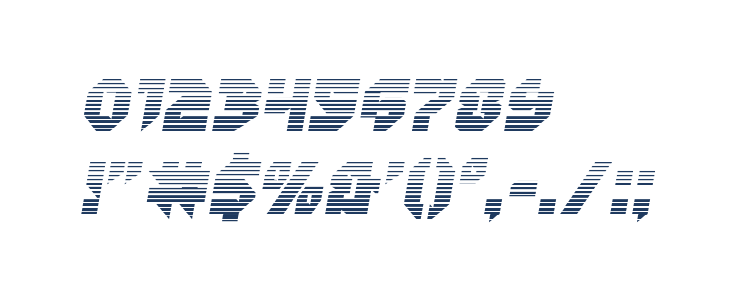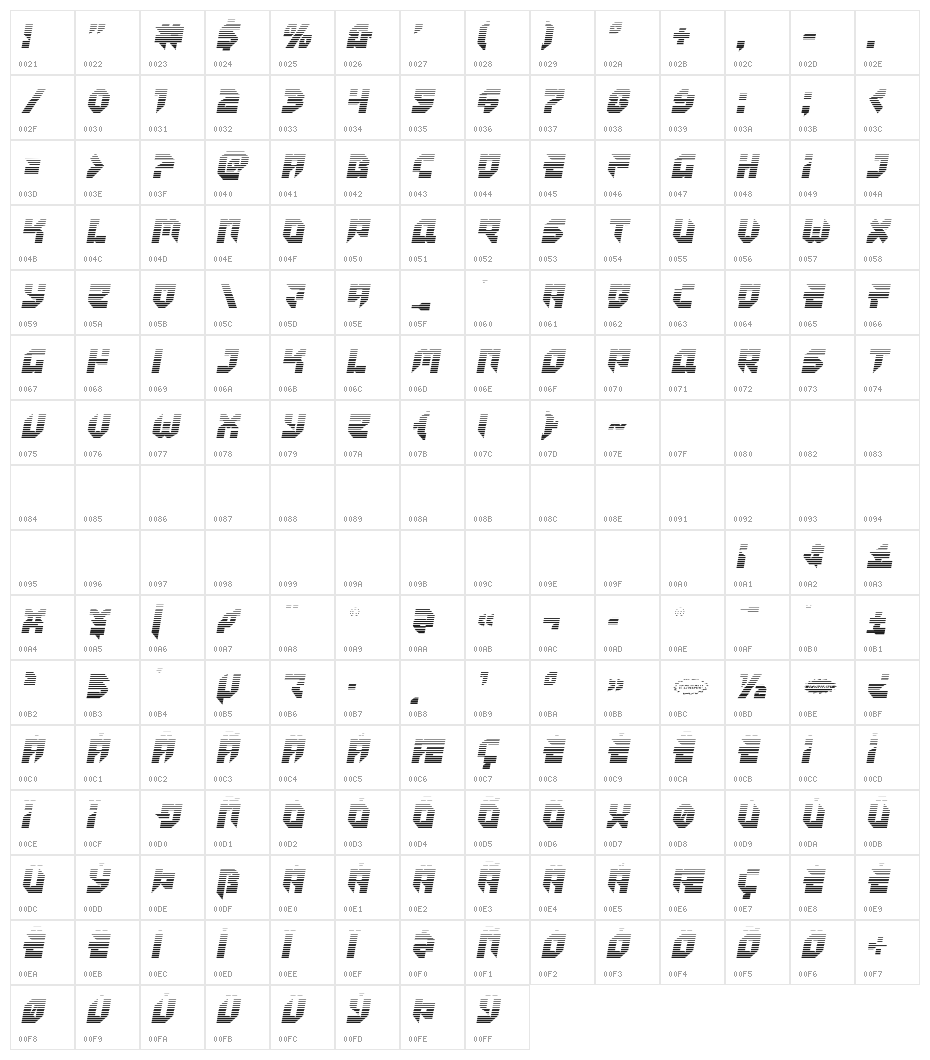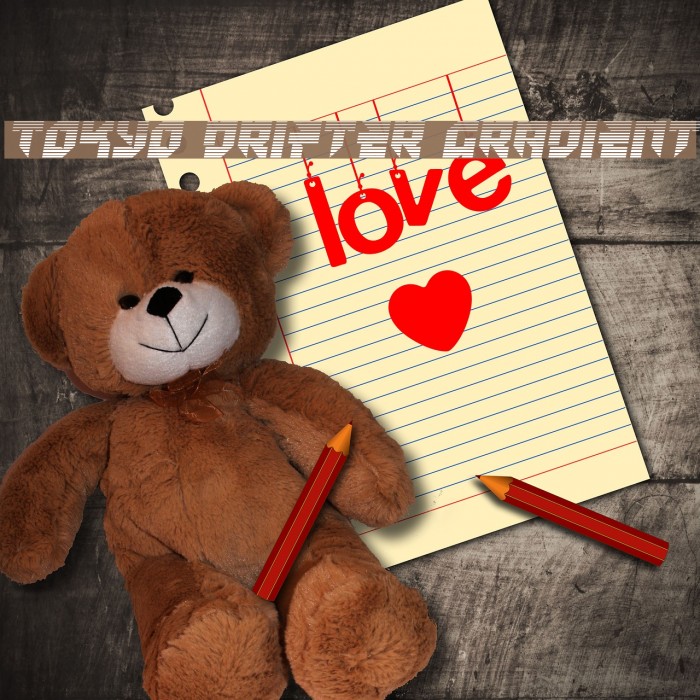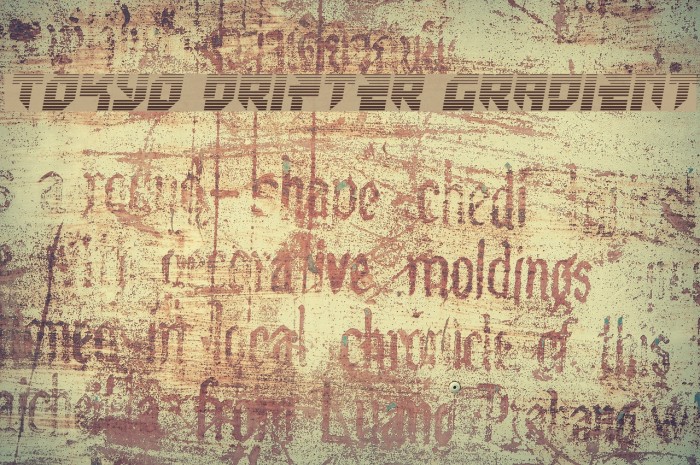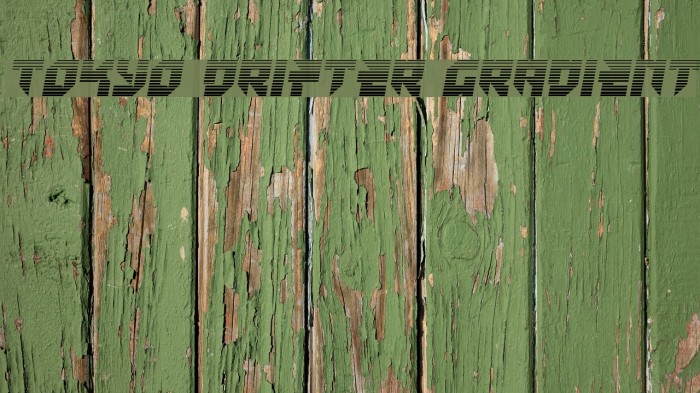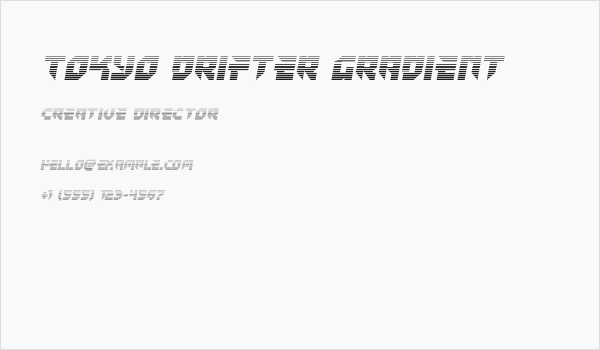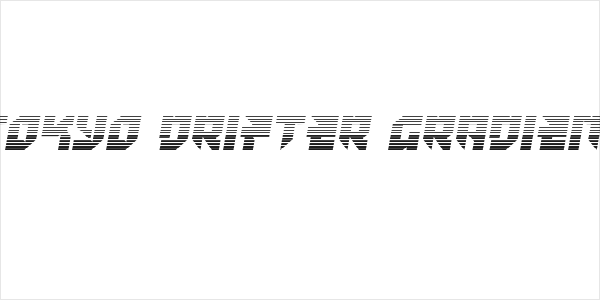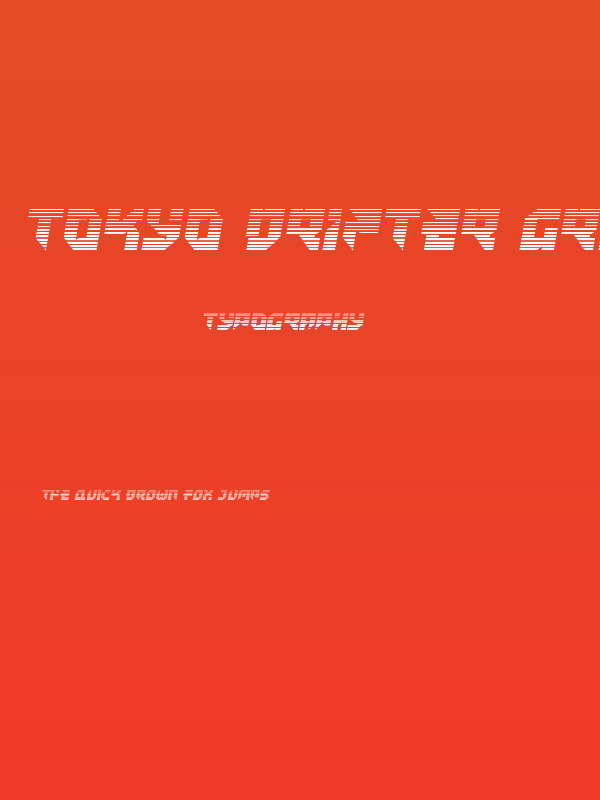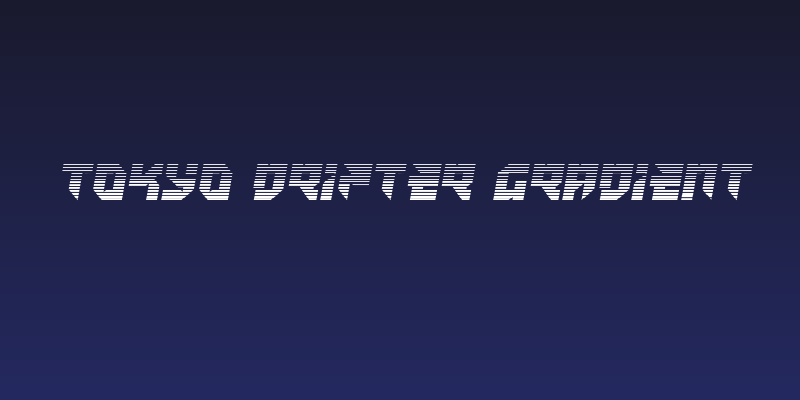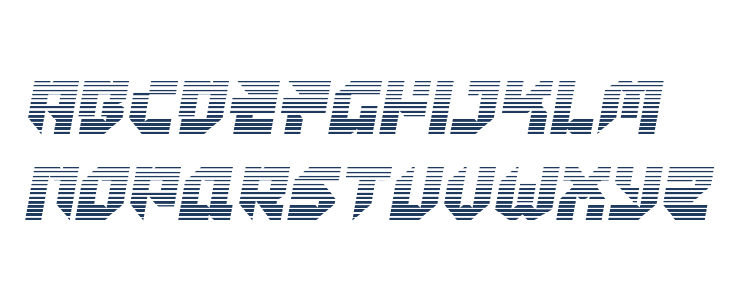
Tokyo Drifter Gradient Font
This font features a futuristic and dynamic design, characterized by its bold, angular shapes and horizontal line patterns that create a sense of movement and energy. The uppercase and lowercase letters are crafted with precision, maintaining a consistent geometric style throughout. The numbers and special characters follow the same aesthetic, ensuring uniformity across all elements. The font's unique gradient-like effect is achieved through the use of parallel lines, giving it a modern and edgy appearance. This design is ideal for projects that require a strong visual impact and a contemporary feel.
Proposed ProjectsIdeal for sci-fi themed designs, video game titles, tech branding, and modern advertising.